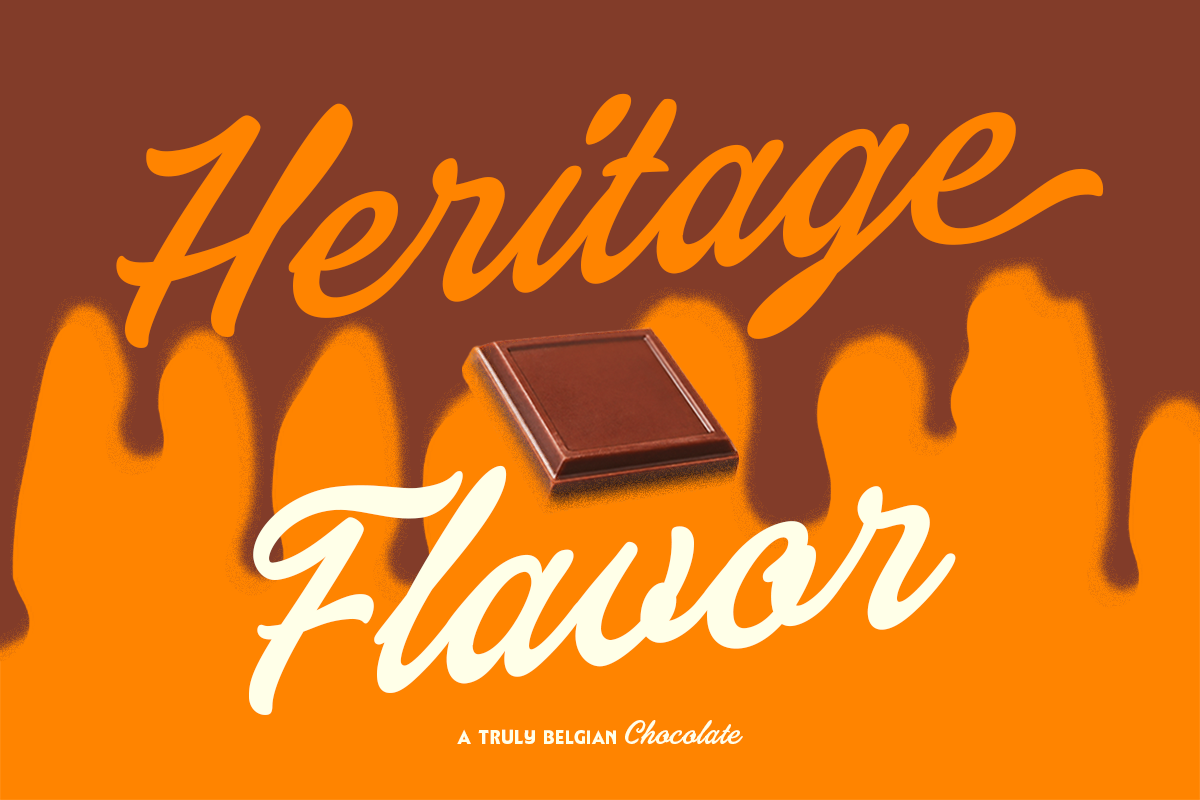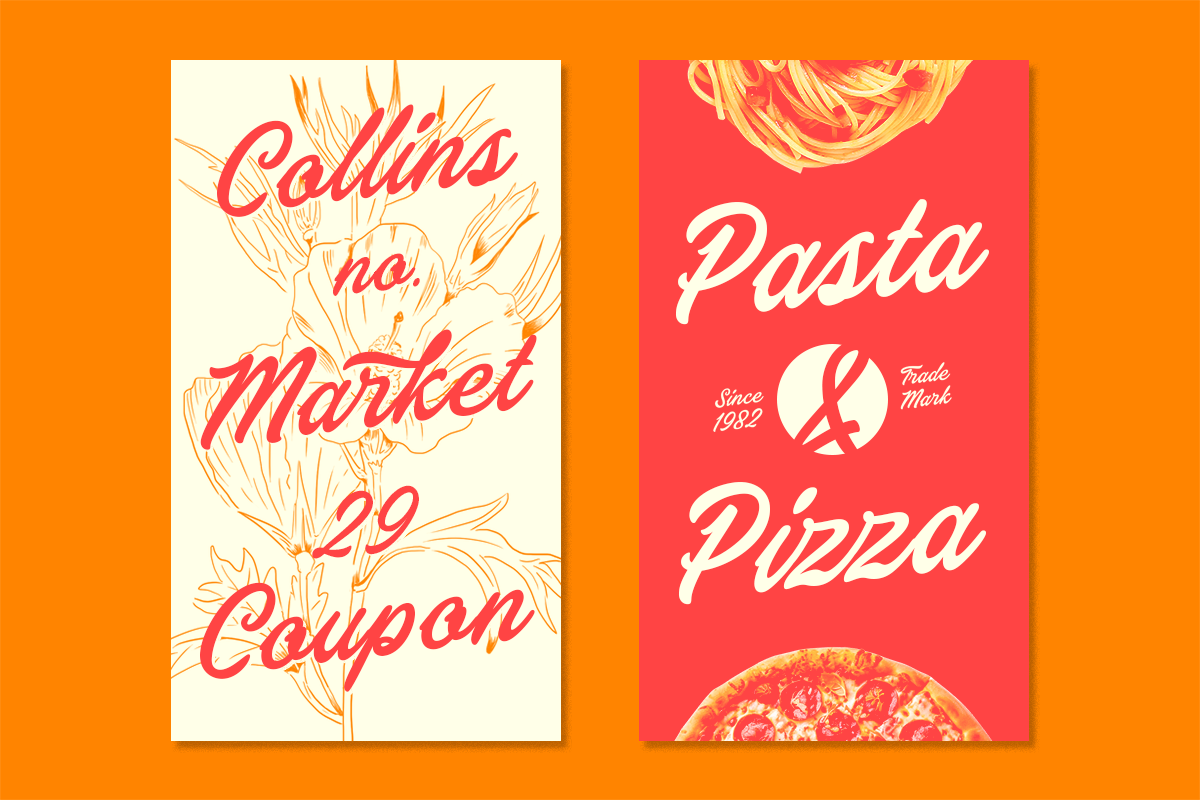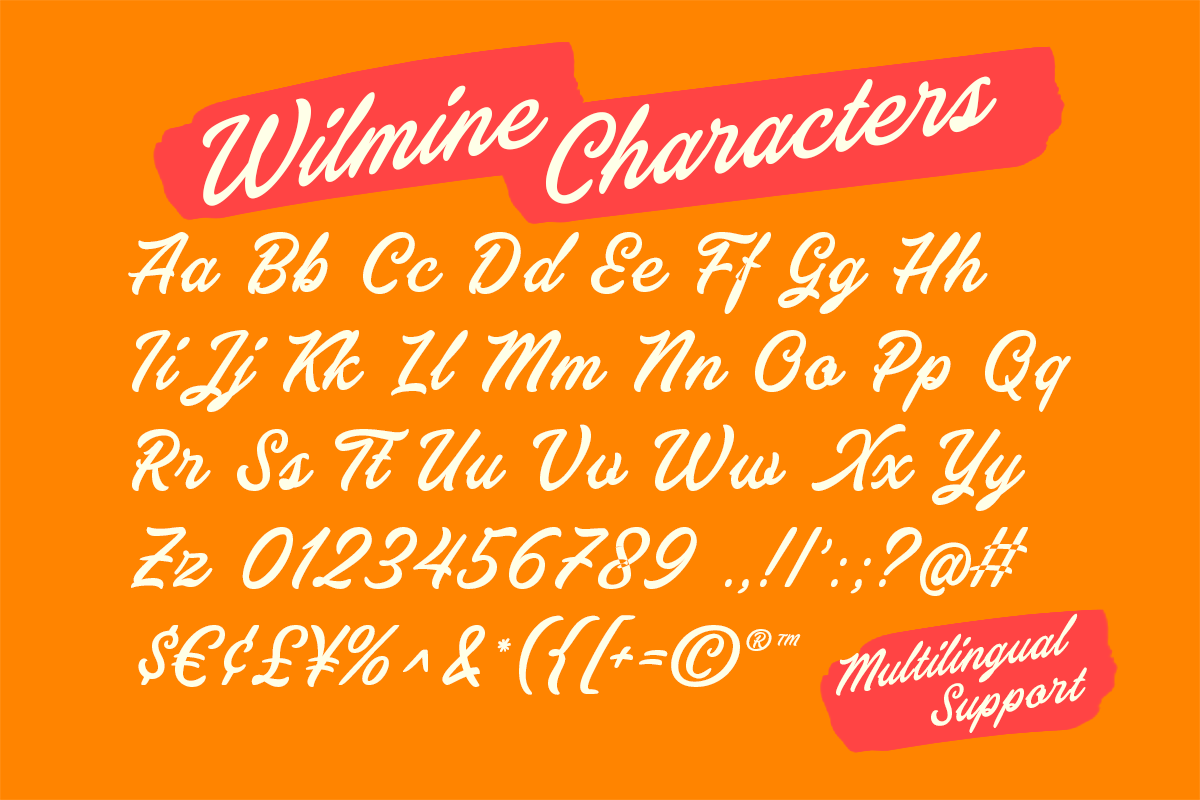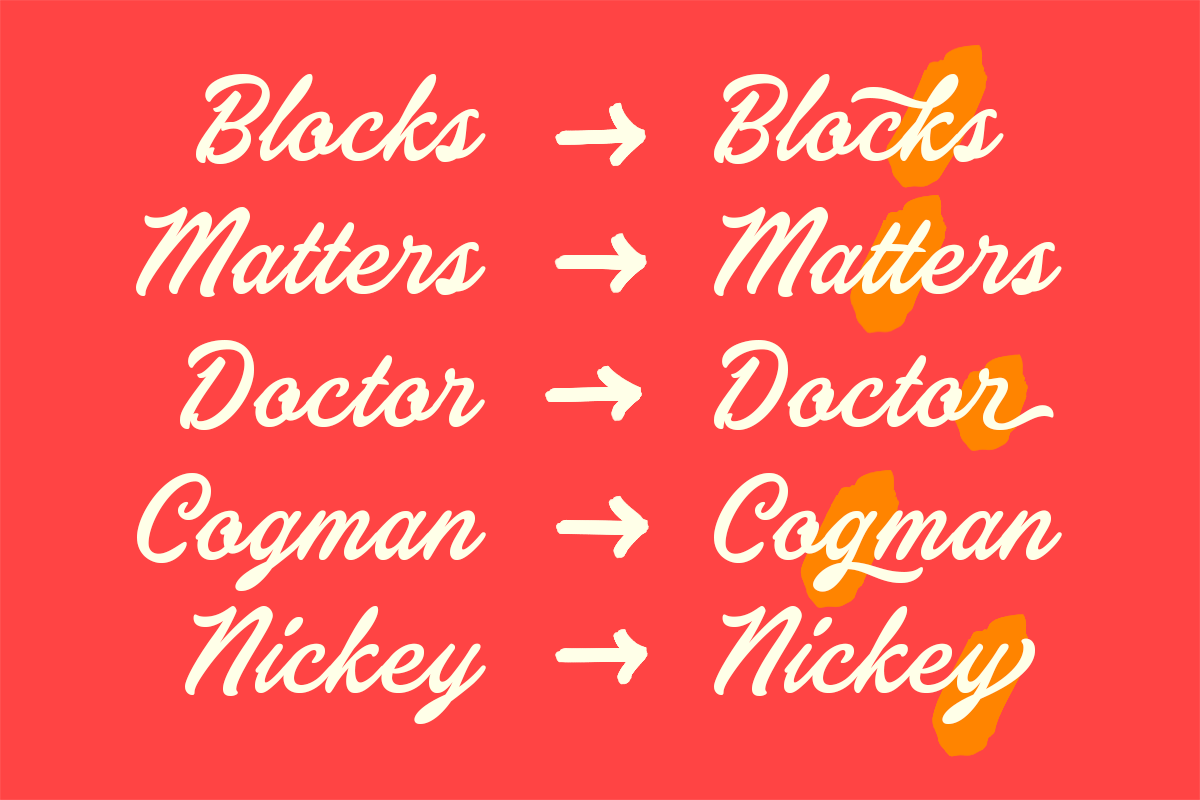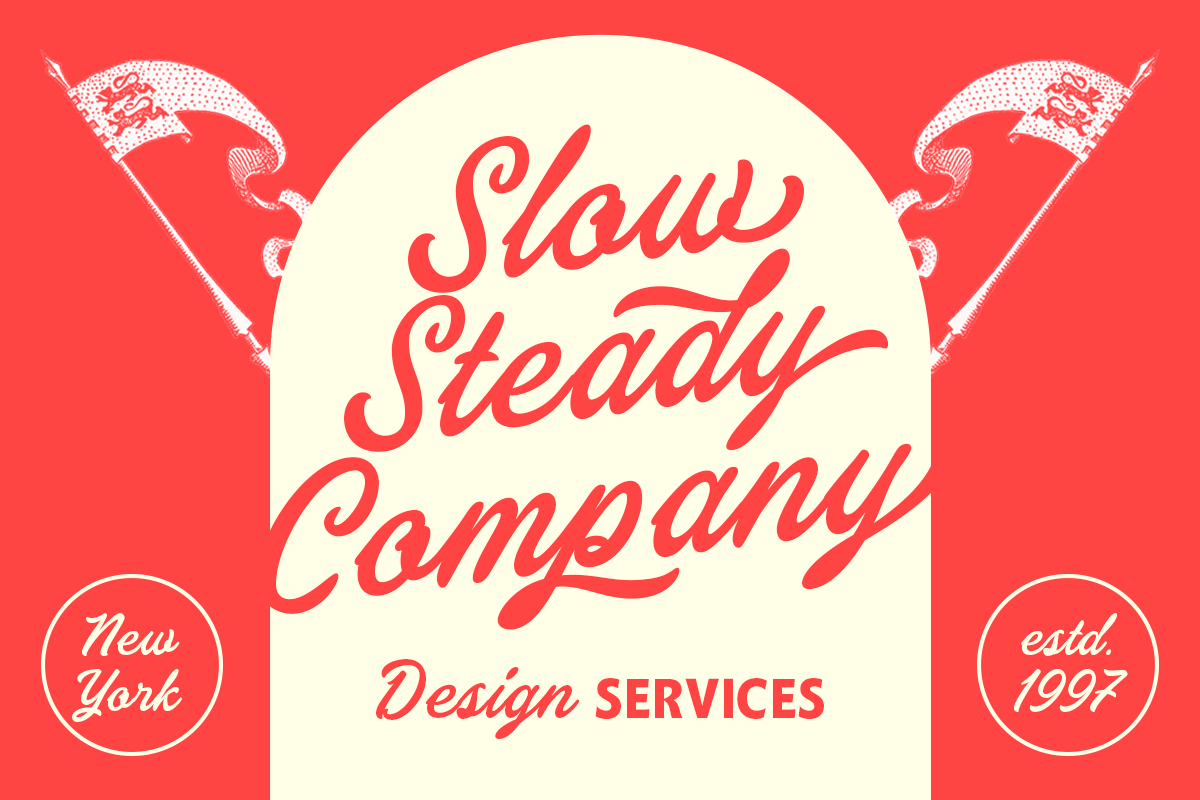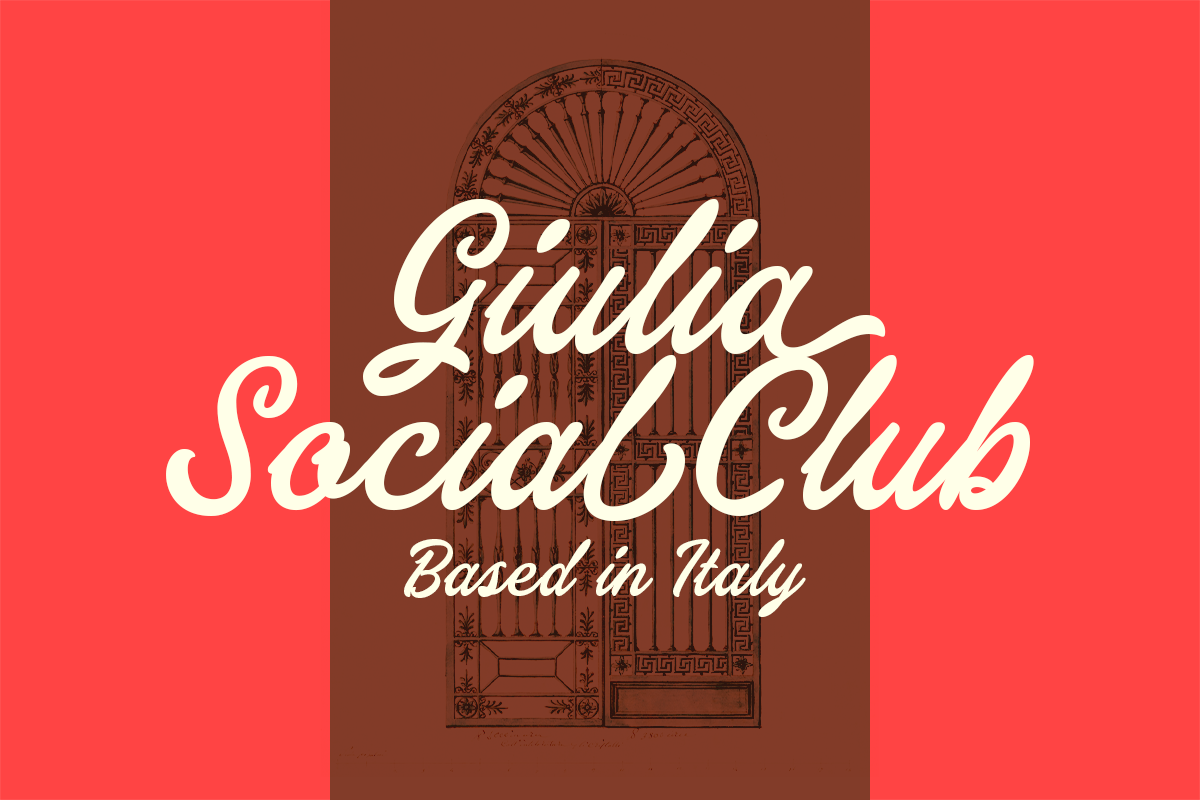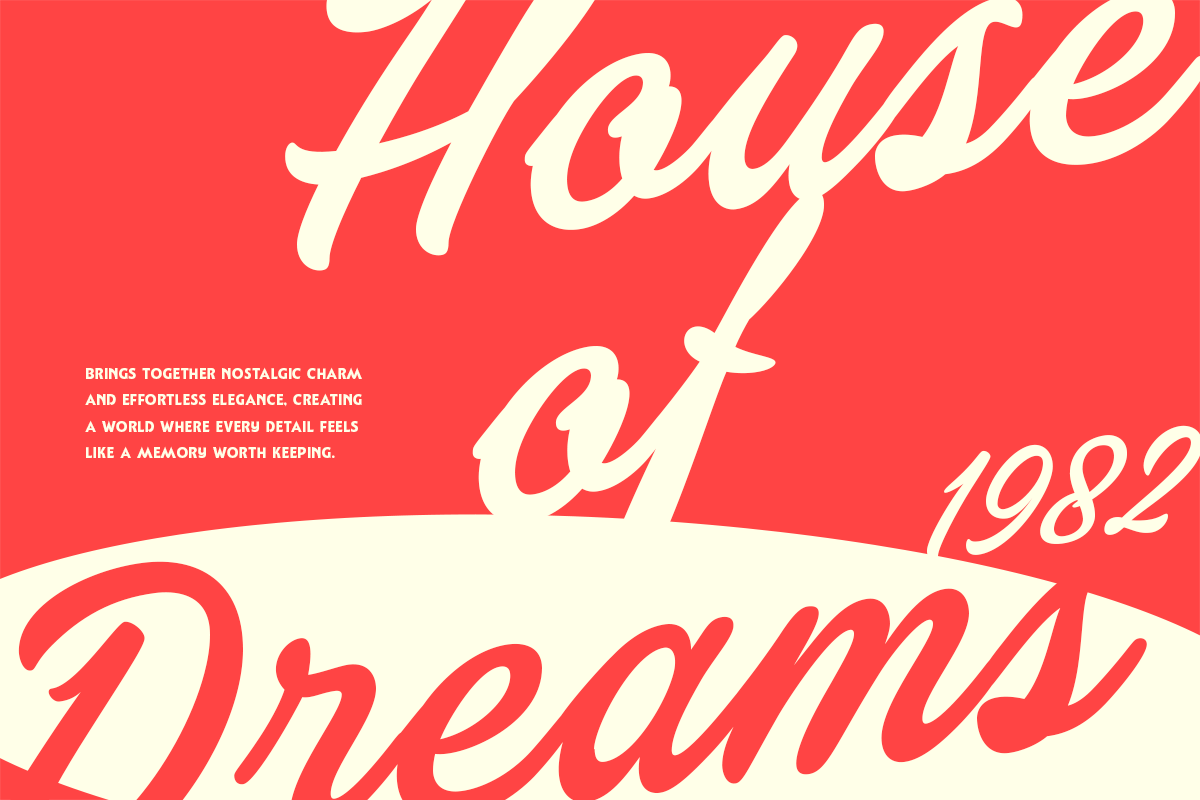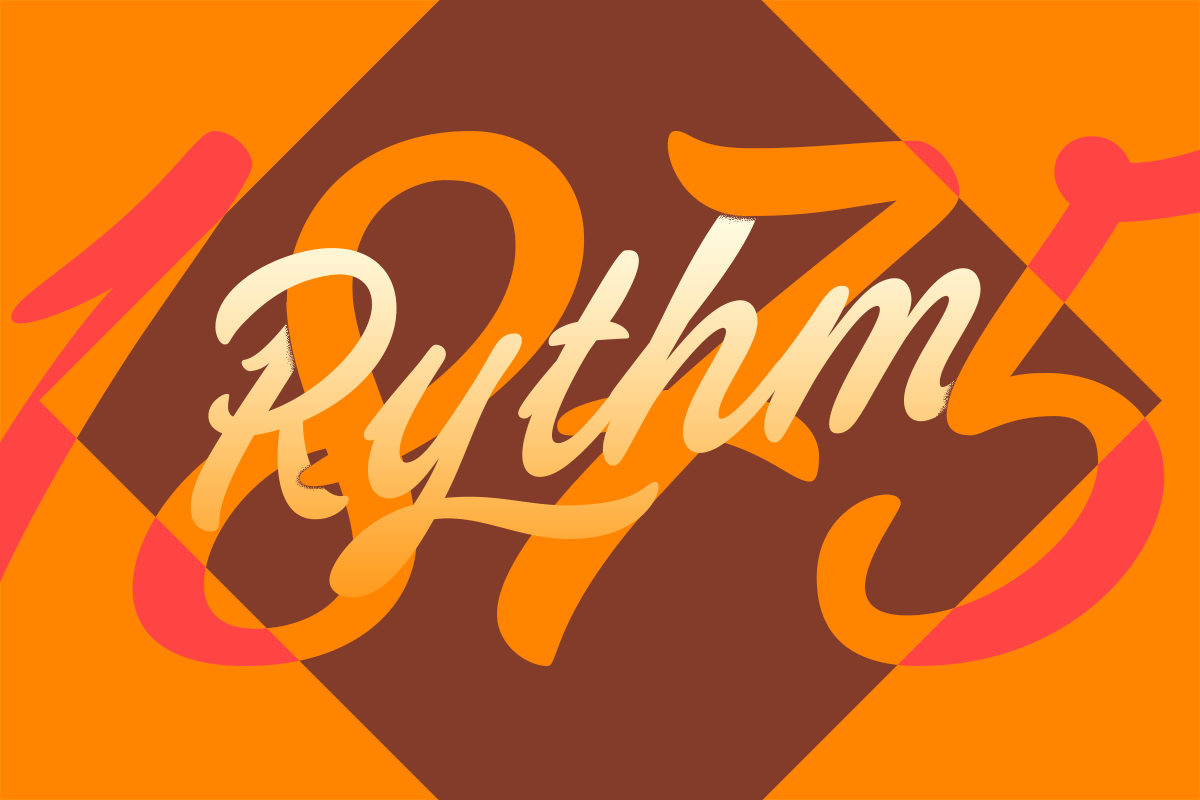
Wilmine Vintage Brush Script
Wilmine Script rolls in with the easy confidence of a hand-painted storefront sign, mixing smooth brush strokes, lively curves, and sweeping details with a warm vintage attitude. Its flowing letterforms feel polished without losing that human, sign-painter spirit, giving logos, restaurant identities, café menus, packaging, posters, labels, and retro-inspired branding a strong sense of personality.
Uppercase & lowercase
Numbers and punctuation
Alternates & Ligatures